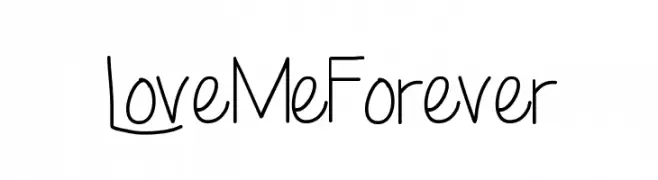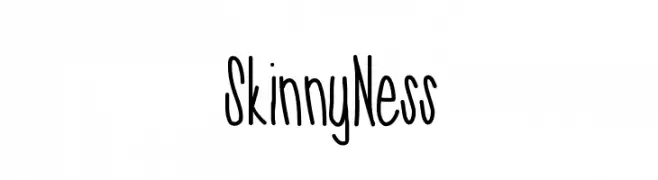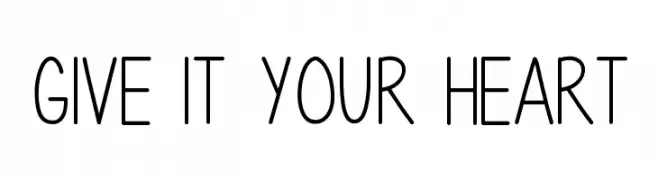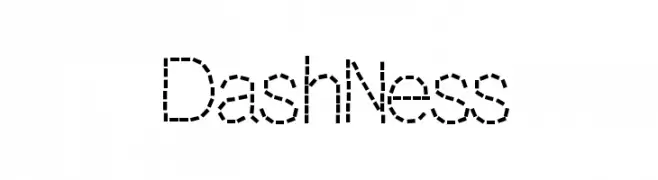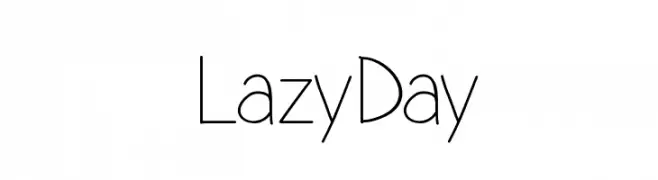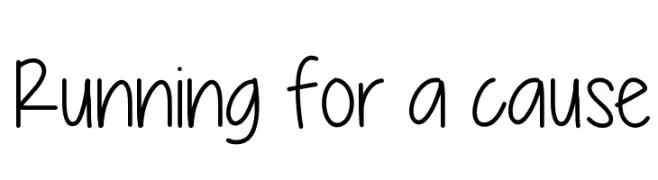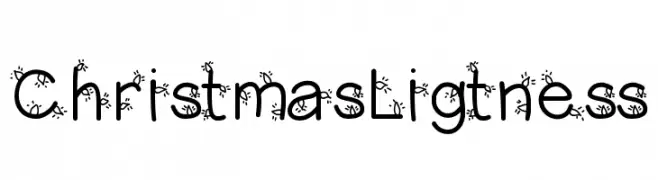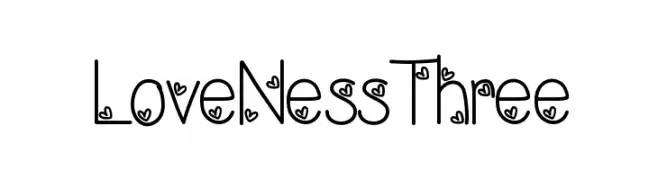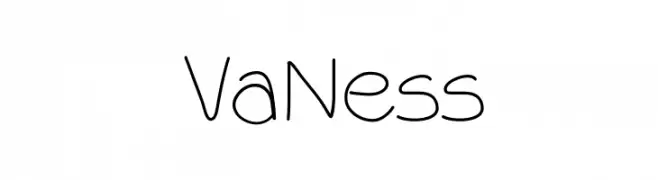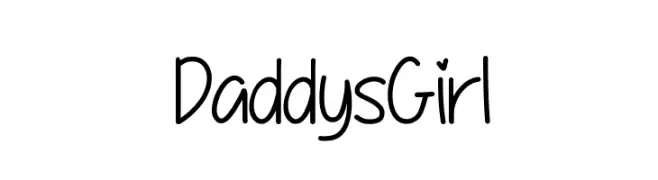
A playful, handwritten font with smooth, flowing lines and a casual style.
A playful, narrow handwritten font with a casual and friendly style.
A modern, dashed line font with a playful and geometric style.
A playful, handwritten script font with smooth, connected letters.
A playful, thin, and whimsical font with elongated strokes and a casual style.
A playful handwritten font with smooth curves and a casual style.
A festive, snowflake-adorned font perfect for holiday-themed designs.
A playful font with heart motifs on each character, perfect for romantic and fun designs.
A playful, connected font with lines and dots creating a whimsical look.
A playful, handwritten-style font with rounded edges and a casual feel.
A playful, handwritten font with tall, narrow letters and consistent stroke thickness.
A playful, casual handwritten font with smooth, rounded edges.
A playful, handwritten font with smooth, rounded edges and a casual style.
A playful, hollow, rounded font with a whimsical and airy design.
A playful, thin, and rounded font with a whimsical style.
A playful, rounded font with smooth curves and consistent thickness.
A tall, narrow, and modern font with elongated, thin characters.
A tall, slender, and modern font with a clean and minimalist design.
A playful, handwritten-style font with thin, smooth strokes and rounded edges.
A playful, rounded font with smooth, flowing lines and a friendly appearance.
A playful, casual handwritten font with expressive strokes.
A playful, handwritten font with a lively and informal style.
A playful, casual handwritten font with smooth, flowing lines and a lively vibe.
A playful, hand-drawn font with rounded, bold characters and a casual style.
A tall, narrow font with sleek, elongated characters and tight spacing.
A playful, rounded font with smooth curves and a friendly appearance.
A playful, hand-drawn font with a sketchy, artistic style.
( Fonts by www.kimberlygeswein.com - Kimberly Geswein )
A playful, curly font with whimsical loops and swirls.
( Fonts by www.kimberlygeswein.com - Kimberly Geswein )
A playful, hand-drawn font with bold outlines and a whimsical style.
( Fonts by www.kimberlygeswein.com - Kimberly Geswein )
A playful, handwritten font with smooth curves and a whimsical style.
( Fonts by www.kimberlygeswein.com - Kimberly Geswein )
A playful, casual handwritten font with smooth, flowing curves.
( Fonts by www.kimberlygeswein.com - Kimberly Geswein )
A whimsical, hand-drawn font with playful, irregular letterforms.